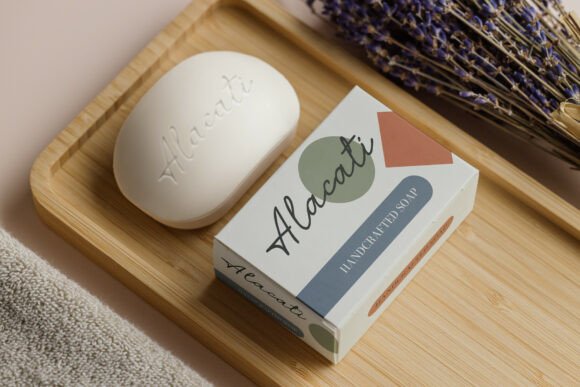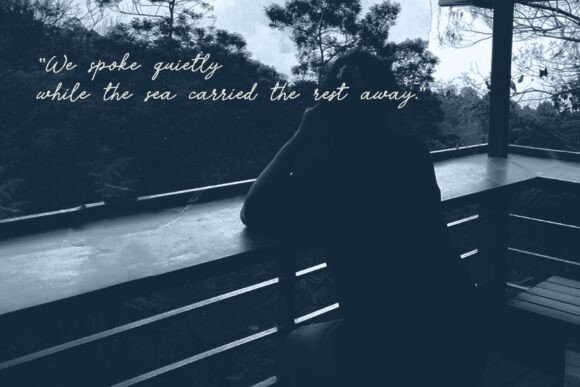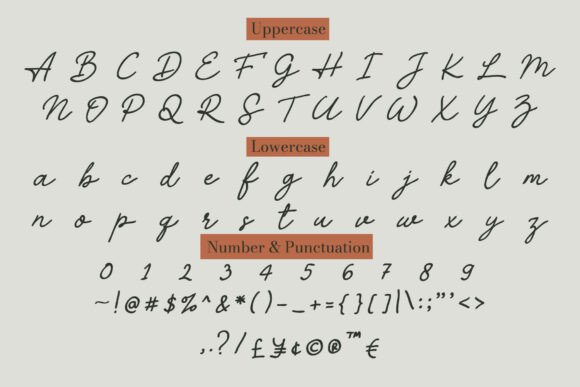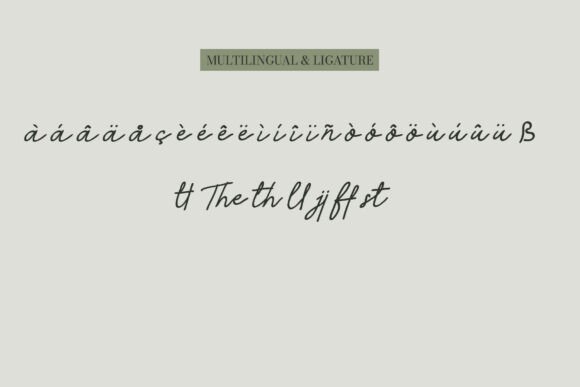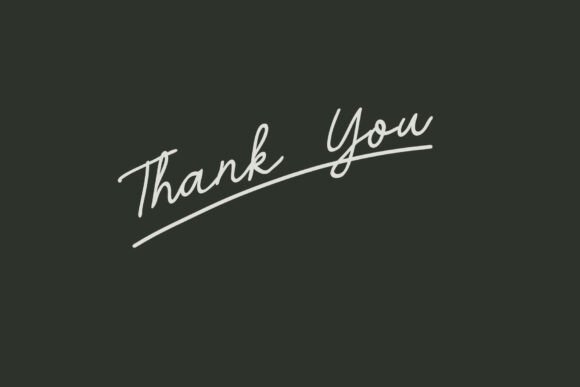
Introducing Alacati Font: A Poetic Handwritten Script for Elegant Designs
Are you a designer or crafter looking for a typeface that embodies the essence of Mediterranean nights, coastal breeze, and quiet luxury? Look no further than Alacati Font, a beautiful handwritten script that brings an intimate editorial feel to your branding, restaurant menus, packaging, fashion campaigns, wedding stationery, and boutique design projects.
Inspired by the Mediterranean Coast
Alacati Font is inspired by the serene and picturesque Mediterranean coast, where the warm sun dips into the sea, and the gentle breeze whispers through the olive trees. This poetic handwritten script captures the essence of this idyllic setting, evoking feelings of relaxation, sophistication, and refinement.
Delicate Flowing Strokes and Natural Movement
Alacati Font features delicate flowing strokes and natural movement, giving it a sense of fluidity and elegance. The typeface is designed to mimic the gentle curves and lines of handwritten script, making it perfect for designs that require a personal touch. Whether you’re creating a brand identity, menu, or packaging, Alacati Font adds a touch of sophistication and whimsy.
Perfect for Editorial and Boutique Designs
Alacati Font is ideal for editorial designs that require a personal and intimate feel. Its elegant and refined appearance makes it perfect for:
- Branding: Create a luxurious brand identity with Alacati Font, perfect for high-end fashion, beauty, or lifestyle brands.
- Restaurant Menus: Add a touch of sophistication to your restaurant menu with Alacati Font, perfect for fine dining establishments or boutique cafes.
- Packaging: Elevate your packaging design with Alacati Font, ideal for luxury products, gifts, or premium goods.
- Fashion Campaigns: Use Alacati Font to add a touch of glamour and sophistication to your fashion campaigns, perfect for high-end fashion brands or editorial spreads.
- Wedding Stationery: Make your wedding stationery truly special with Alacati Font, perfect for elegant and refined wedding designs.
- Boutique Design Projects: Alacati Font is perfect for boutique design projects that require a personal and intimate feel, such as boutique hotel branding or specialty product design.
Why Choose Alacati Font?
Alacati Font offers a unique combination of elegance, sophistication, and whimsy, making it the perfect choice for designers and crafters looking for a distinctive typeface. Here are just a few reasons why you should choose Alacati Font:
- Unique and Distinctive: Alacati Font is a one-of-a-kind typeface that will set your designs apart from the rest.
- Elegant and Refined: Alacati Font exudes elegance and refinement, perfect for high-end designs that require a touch of sophistication.
- Versatile: Alacati Font is versatile and can be used for a wide range of design projects, from branding and packaging to editorial and boutique designs.
- Easy to Read: Despite its elegant and refined appearance, Alacati Font is easy to read, making it perfect for body text and headlines.
Alacati Font is a beautiful handwritten script that embodies the essence of Mediterranean nights, coastal breeze, and quiet luxury. With its delicate flowing strokes and natural movement, this typeface brings an intimate editorial feel to your designs. Perfect for branding, restaurant menus, packaging, fashion campaigns, wedding stationery, and boutique design projects, Alacati Font is a versatile and elegant typeface that will elevate your designs to the next level.